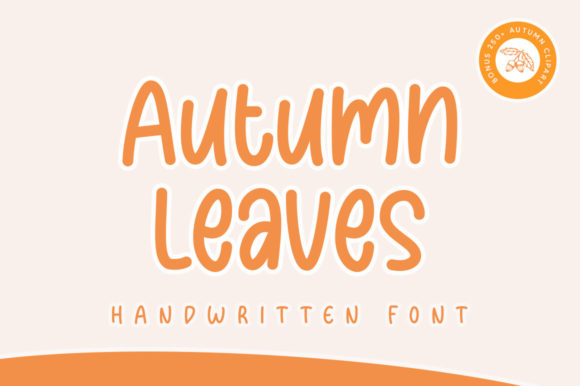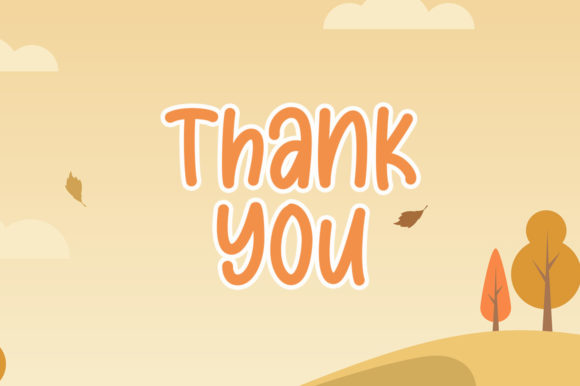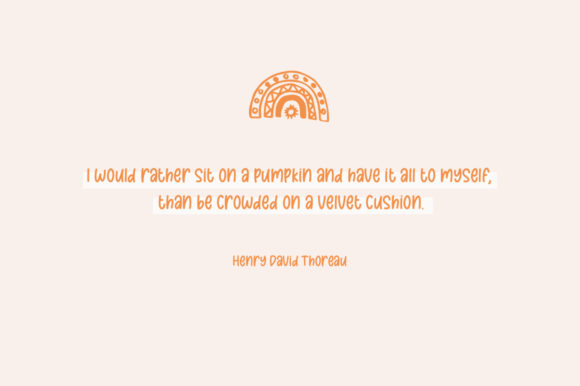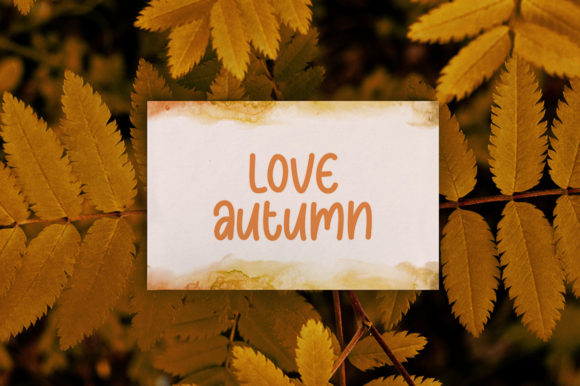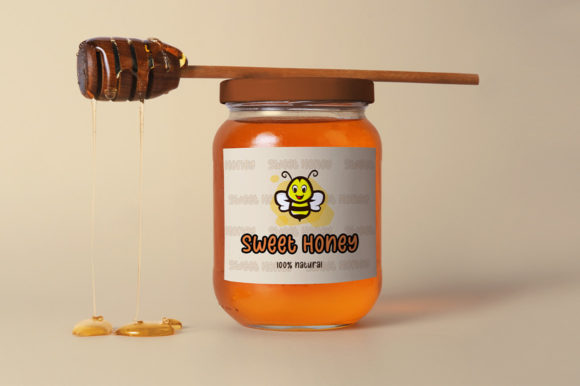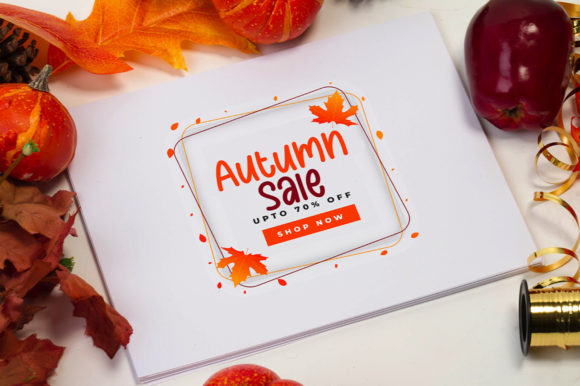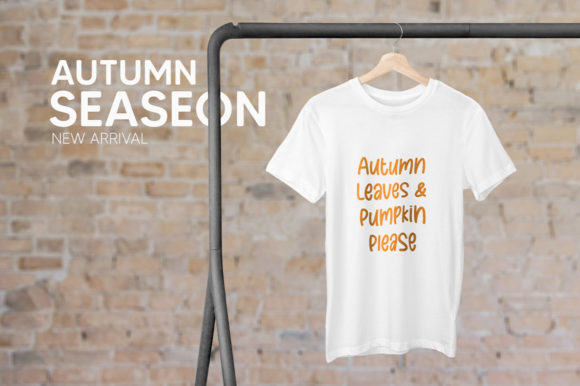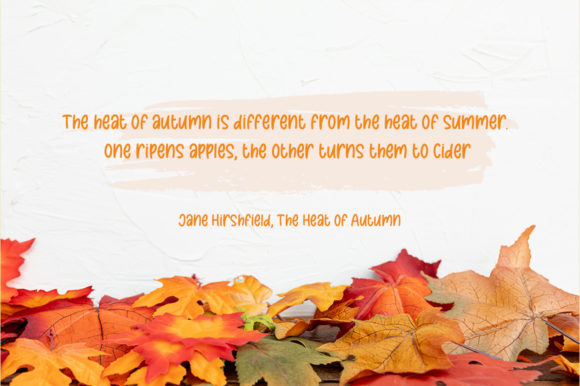
Autumn Leaves Font
About Autumn Leaves Font
Autumn Leaves is a cute and simple lettered handwritten font that can be used for all chalkboard quotes or teaching material! Its authentic look will add a personal and realistic feel to your designs.